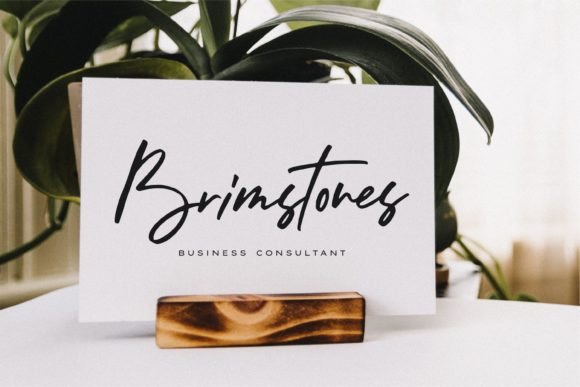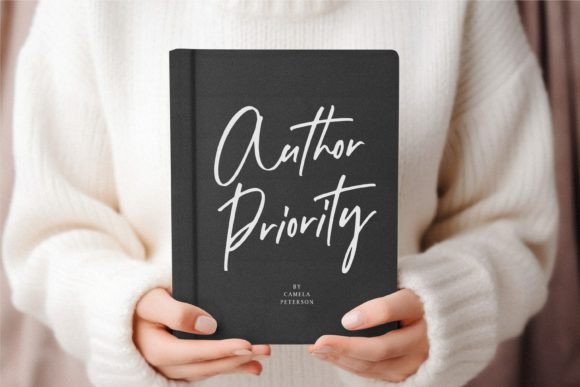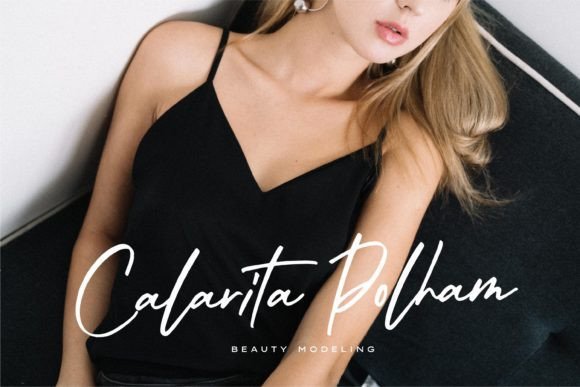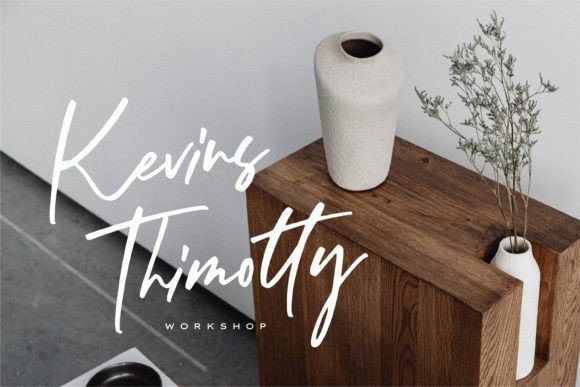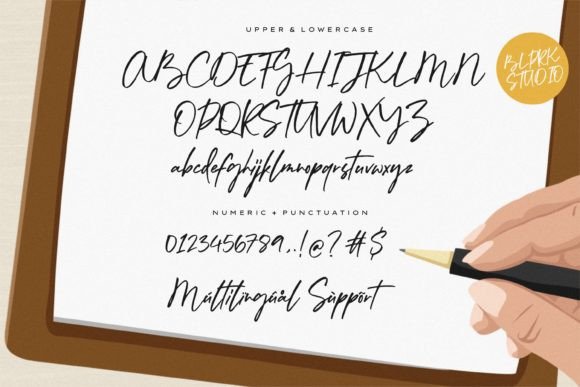
Introduction to Signature Creek Font Font
Fonts play a crucial role in design, and the Signature Creek Font font is a typeface that brings both character and versatility to any project. Whether you’re working on a branding project, a website, or a print design, the Signature Creek Font font offers a unique style that can elevate your work.
Signature Creek is a Modern Handbrushed Script Font thatβs perfect for adding a personal touch to your design projects.
With its natural, organic feel and unique character Crafted with care and attention to detail, this font is incredibly versatile and can be used for a range of design projects, including logos, branding, invitations, and more.
Key Features of Signature Creek Font Font
Why Choose Signature Creek Font Font?
The Signature Creek Font font is more than just a typeface β it’s a design tool that helps you communicate your message with style and clarity. Its unique character set and versatile design make it suitable for a wide range of applications, from elegant invitations to bold headlines.
With its carefully crafted letterforms and balanced proportions, the Signature Creek Font font ensures readability and visual appeal across all mediums.
What makes Signature Creek Font font special?
The Signature Creek Font font stands out with its unique design, exceptional readability, and versatility across various design applications.